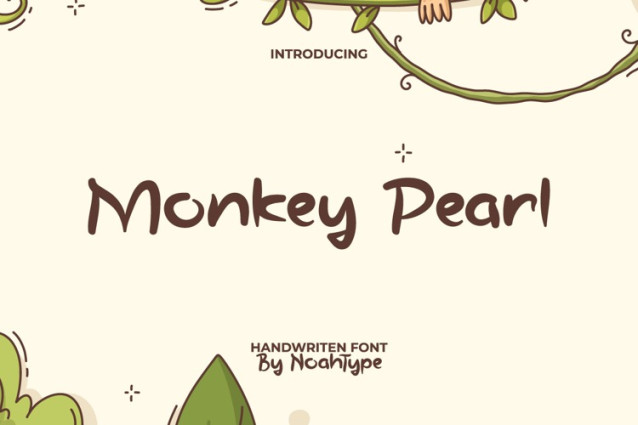
Monkey Pearl Font
Monkey Pearl, a beautifully crafted handwritten font that combines elegance and clarity: Monkey Pearl – This font maintains a personal touch while ensuring every letter is legible. Perfect for everything from creative designs to casual notes, it strikes the perfect balance between style and readability. Whether you’re designing brand identities, creating invitations, social media posts, or printed merchandise, this font will add a friendly and inviting feel to your projects. This versatile font comes in three weights—light, regular, and bold—and features international characters.